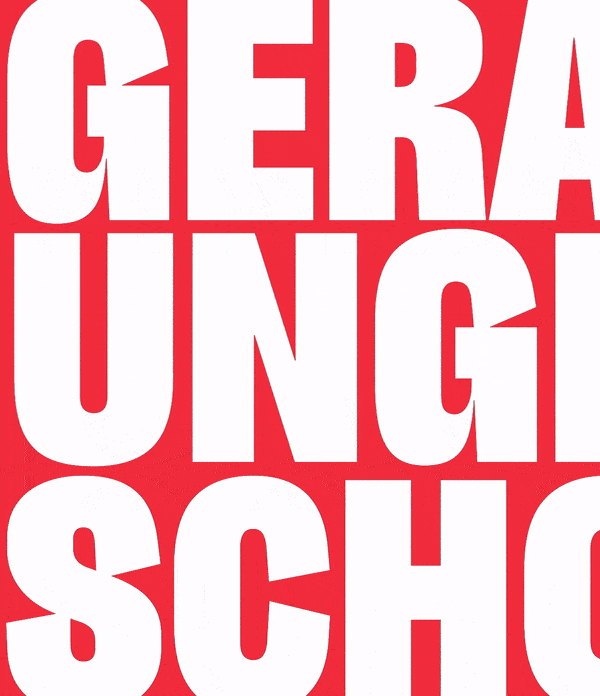
THE TYPETOGETHER STORY: CHAPTER 2023
Join us as we look back at what we’ve been able to accomplish in 2023 with you and our other partners.
This past year gave us many opportunities across several categories: supporting education, striking typeface releases, insightful editorials, unique custom fonts for corporate clients, and of course our first-of-its-kind Primarium project. Ready for this year’s wrap-up? We’re hitting the ground running! And along the way we’ll give a few hints about what’s to come.
In April we once again added another script to everyone’s favorite and most flexible superfamily when we made Adelle Sans Korean, partnering with our longtime colleagues at Sandoll. And in June we published Nina Faulhaber’s Aeroplan, the serif equivalent of optical poetry and a right proper modern replacement for Baskerville-style fonts.
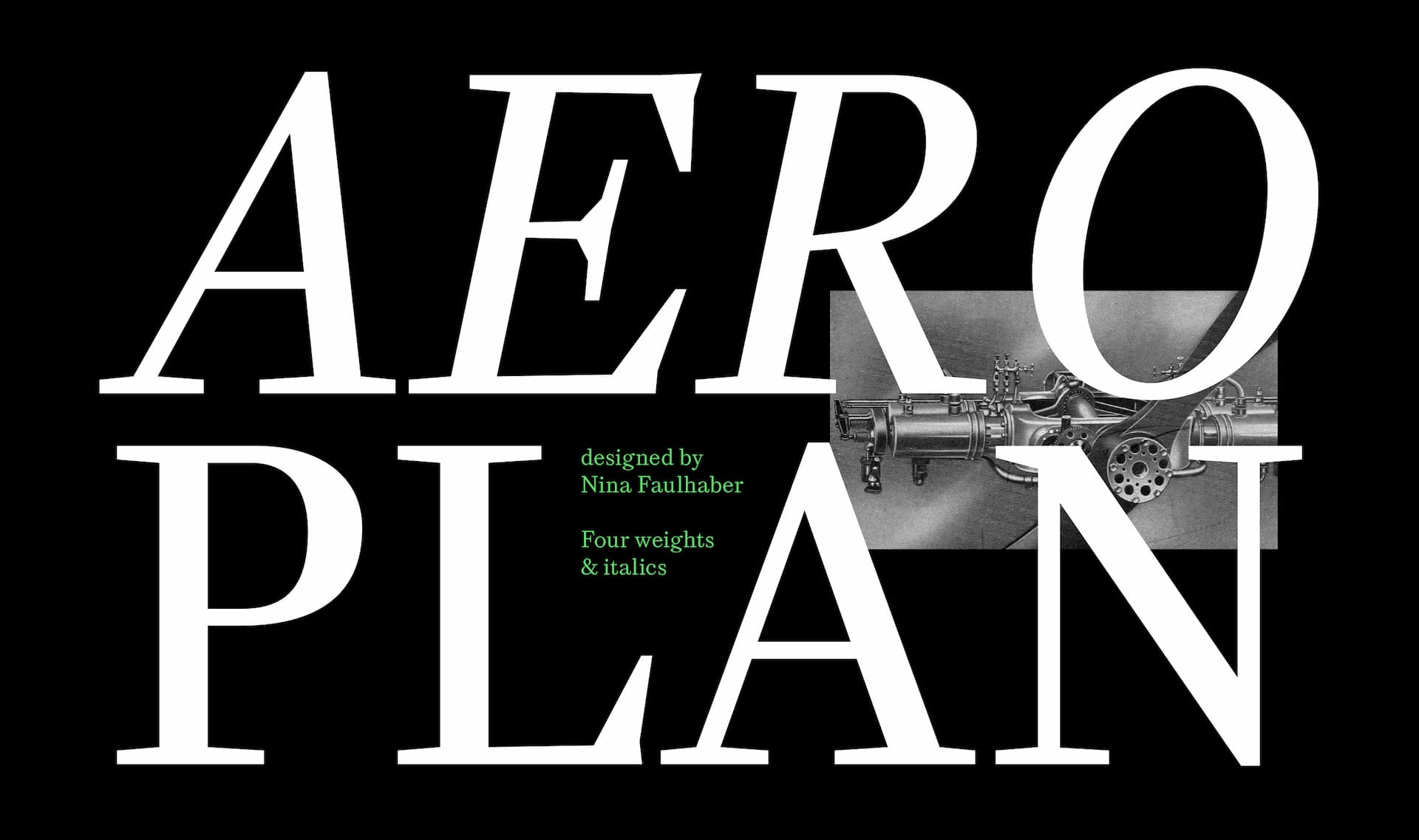
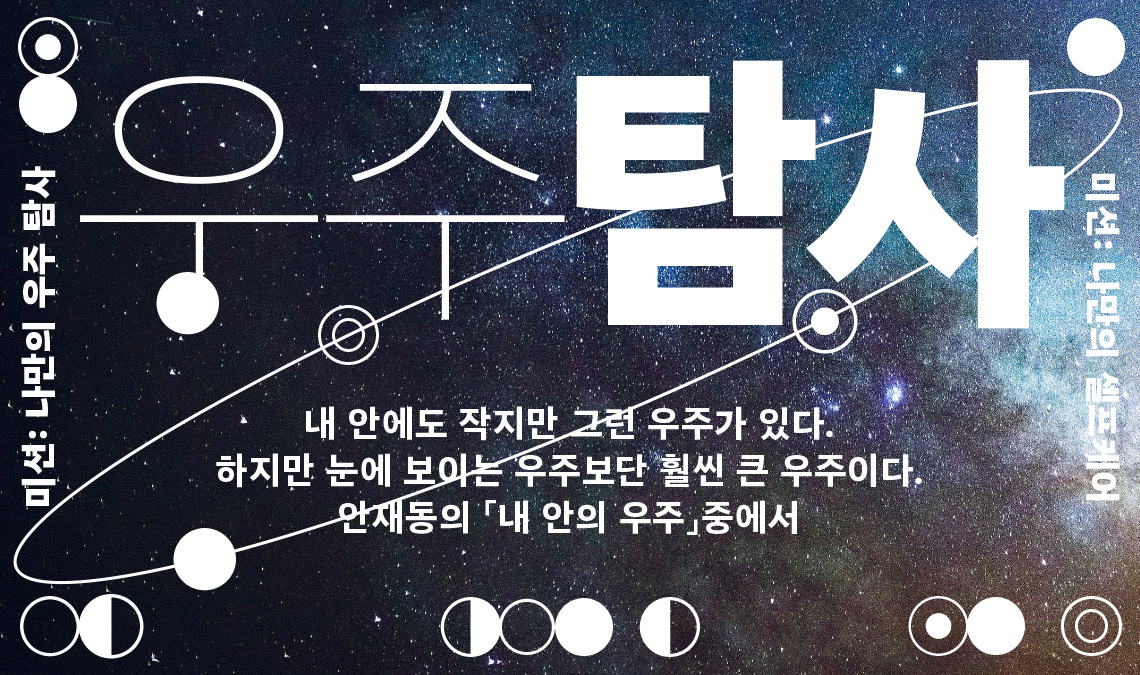
Florian Fecher’s Lektorat was easily a smash hit when it was released a few years ago. It’s been used in books, posters, for small businesses, and large events. So what could make it even better? Expanding it with its own set of obliques. Ask and you shall receive.
Playpen Sans
Finally, just last month — December 2023 — we popped the airlock on a two-year project to create a casual yet technologically advanced typeface named Playpen Sans. Complete with a character shuffler, matching emojis in all eight weights, and enough personality to make the little things shine, this completely free family is where digital excellence meets casual handwriting. Wanna know the best thing about this typeface? We’re not done expanding its possibilities.
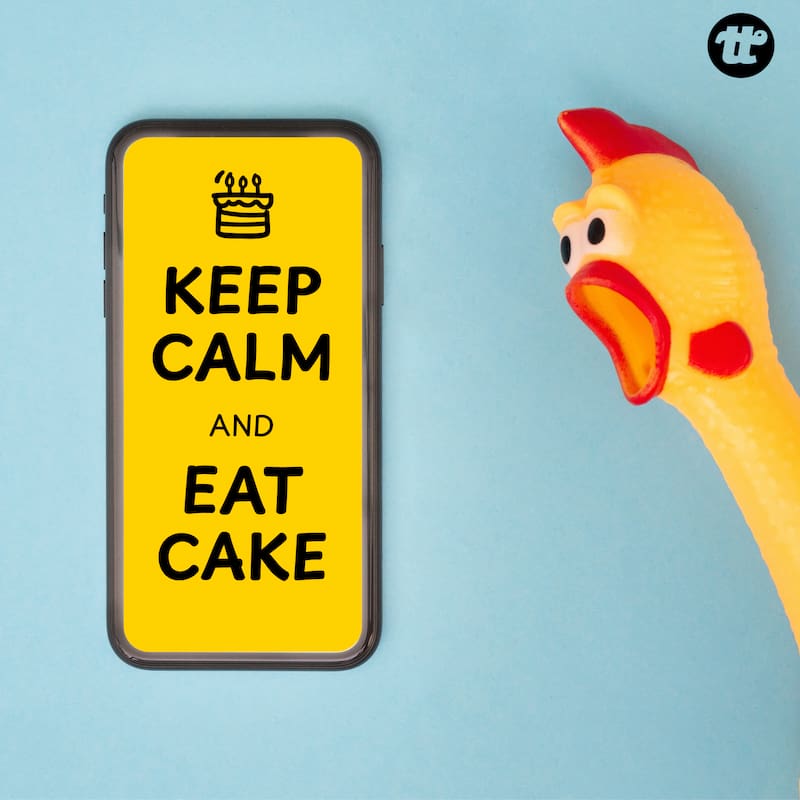
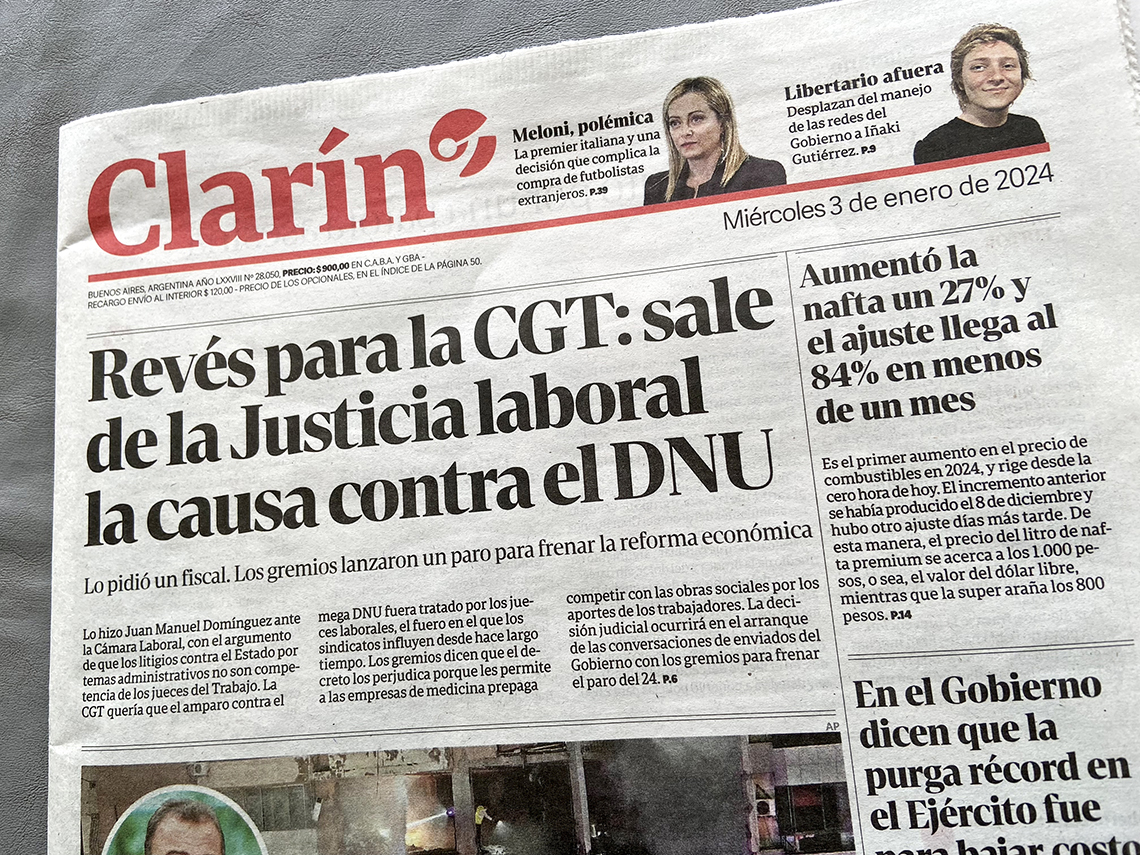
One of the largest projects we’ve ever completed, and one in which we are immensely proud, is Primarium.info, our groundbreaking research into how children are taught handwriting in Latin-based regions around the world. It has taken two years to get to this point and we will continue researching and posting results for the foreseeable future.
Complete with in-depth references, images, and new text, the Primarium results have also informed the creation of Playpen Sans and our upcoming Playwrite typefaces (along with another powerful and helpful surprise that will be released in time).
Playpen Sans is our casual family for everyday use (with high-octane tech under the hood). Playwrite is best described as a superfamily that has within it almost every character from the main Latin-based scripts in the world: joined, semi-joined, looped, unlooped, and regional variations like the ‘f, p, q’, and more. It is a mammoth project and we are excited for its 2024 release.
Awards
Each year we are fortunate to win multiple international awards. And while it’s not about the awards themselves, these encouraging recognitions are just another thumbs-up to our incredible team to show that we’re on the right track and doing something worthwhile.
The almost-dozen wins this year are another nod in honor of the years and energy spent on these projects: Rezak received the TDC Certificate of Excellence and won Silver at ED-awards; Aneto received the TDC Certificate of Excellence, Bronze at ED-awards, and Clap Platinum; Atlante received the TDC Certificate of Excellence and Gold at ED-awards; Aeroplan was awarded by Communication Arts; and Noort Bengali was shortlisted in the Dezeen Awards. Cecilia’s motion graphics were awarded with the Clap Platinum, and the collaborative project of converting our Catalpa family into wood type was also honoured with the Clap Platinum.